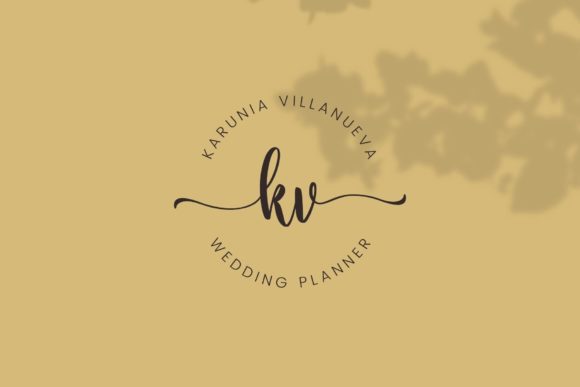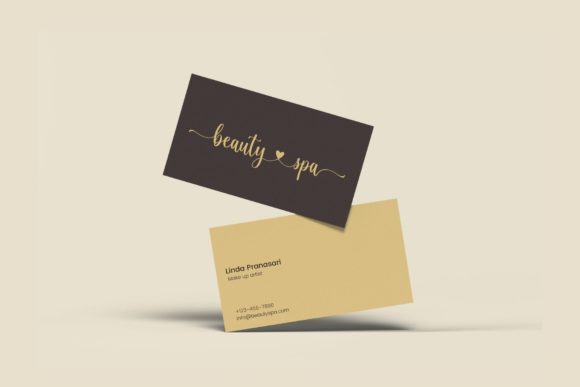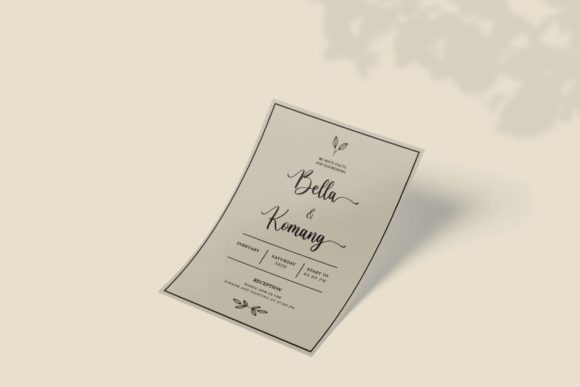
Introduction to Smooth Loving Font
Smooth Loving is a modern calligraphy font.
It is perfect for branding, logos, wedding invites, and every other design which needs a handwritten romantic touch This font is PUA encoded which means you can access all of the glyphs and swashes with ease.
Key Features of Smooth Loving Font
Why Choose Smooth Loving Font?
Smooth Loving Font offers exceptional quality and versatility, making it a valuable addition to your design toolkit. Whether you’re creating for personal projects or commercial use, Smooth Loving Font delivers professional results.